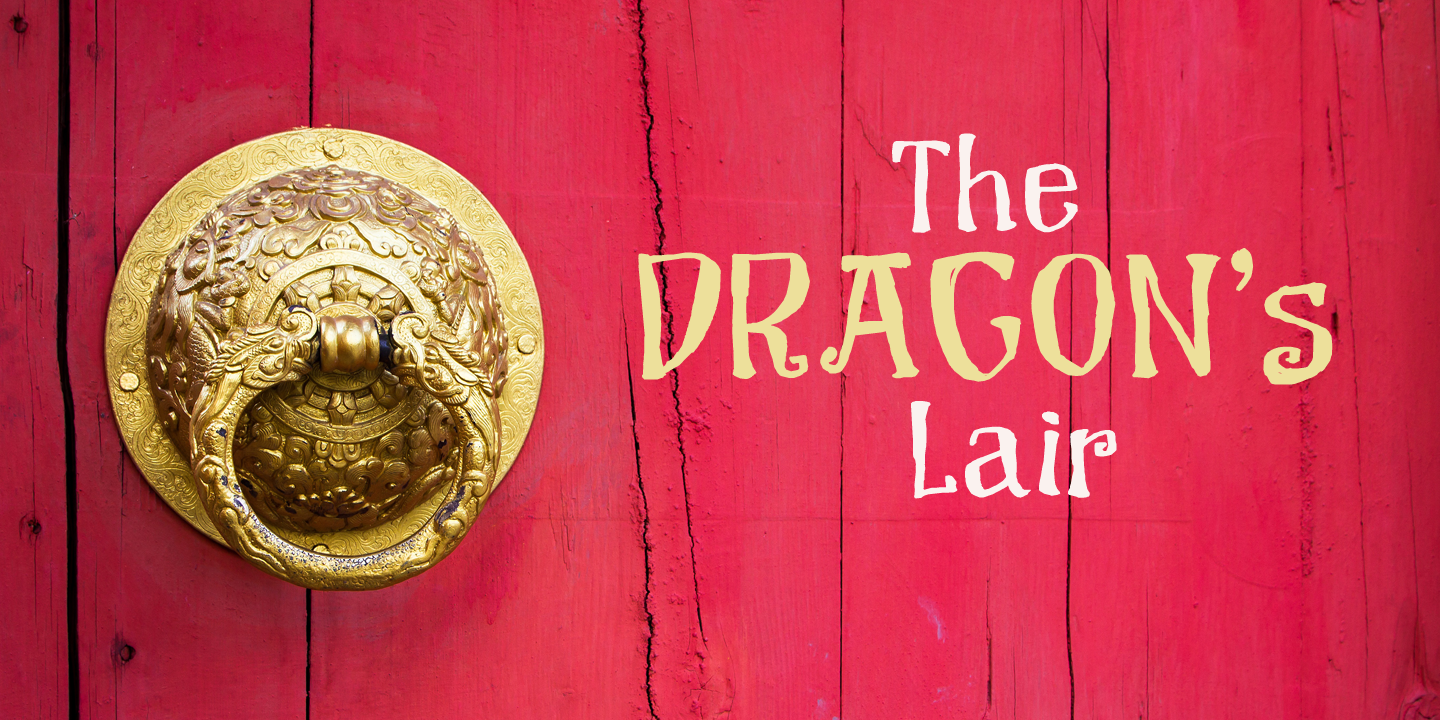
Dragon Spell Font is perfect for fantasy gaming graphics, mystical book covers, medieval storytelling projects, magical entertainment branding, epic adventure campaigns, mystical jewelry marketing, and enchanting dragon-themed designs.
What makes Dragon Spell Font exciting is its mystical power and ancient enchantment, featuring magical letterforms that capture the essence of dragon magic while delivering legendary visual impact and fantasy authenticity.
The Dragon Spell Font family includes Light, Regular, Medium, Bold, and Heavy weights, plus mystical variants and ancient alternates that enhance the font's magical character and legendary possibilities.
Dragon Spell Font Free Download embodies the legendary power of ancient dragons and the mystical essence of magical enchantments through spellbinding typography design. This enchanting typeface captures the primordial wisdom of dragon lore and the mesmerizing beauty of ancient spells, creating a magical visual language that speaks to fantasy enthusiasts and mystical storytellers who value legendary tales, magical adventures, and the captivating appeal of dragon mythology. The font's mystical character and dragon appearance make it perfect for fantasy gaming companies, mystical entertainment brands, and magical storytelling organizations that want to communicate power, mystery, and the legendary appeal of dragon enchantment.
Fantasy gaming companies and mystical entertainment brands consistently select Dragon Spell Font for projects that require authentic magical credibility and legendary visual impact. The typeface's enchanting construction and mystical personality make it exceptionally effective for fantasy game developers, magical book publishers, and mystical entertainment venues where dragon lore and ancient magic are paramount. Each character has been crafted with mystical precision to ensure maximum enchantment across all fantasy applications and magical environments.
The legendary advantages of Dragon Spell Font extend beyond its magical appeal to include practical functionality for diverse fantasy applications. The font maintains excellent readability in mystical settings while delivering the distinctive character that creates memorable magical experiences and connects with audiences seeking authentic dragon mythology. Its comprehensive character set includes mystical symbols and ancient elements that make it particularly suitable for fantasy documentation and magical communication.
Fantasy game studios, mystical book publishers, and magical entertainment companies frequently choose Dragon Spell Font because of its ability to instantly convey magical authenticity and legendary sophistication. The typeface's enchanting aesthetic helps establish credibility in competitive fantasy markets while appealing to audiences who value dragon lore, mystical adventures, and the spellbinding experiences that come from authentic magical storytelling and legendary dragon enchantment.